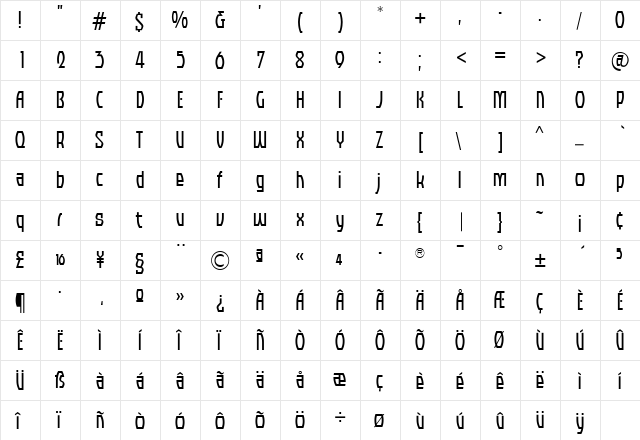
TFAkimbo Medium
Design Context for TFAkimbo Typeface
TFAkimbo is a composed and adaptable typeface that performs quietly and consistently across a wide range of design contexts.
Pro Tip: Pair TFAkimbo with a font of contrasting weight or personality to build a more expressive typographic hierarchy.